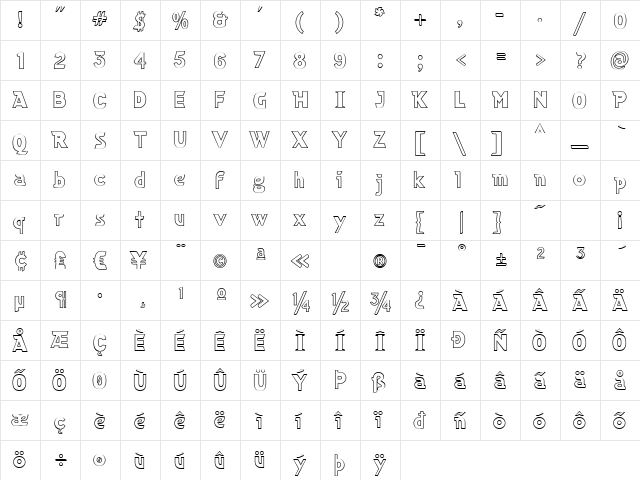
CubanOutline Regular Font Preview
CubanOutline Regular
Design Context for CubanOutline Typeface
CubanOutline is built around its visual character rather than neutral utility — its distinctive forms are designed to make an impression at display sizes.
Font Pairing: Pair with a clean neutral sans-serif for body copy to let CubanOutline's character lead without overwhelming the composition.
Pro Tip: Use CubanOutline exclusively at display sizes — it was designed to be seen, not read at length. Let a neutral companion handle body copy.